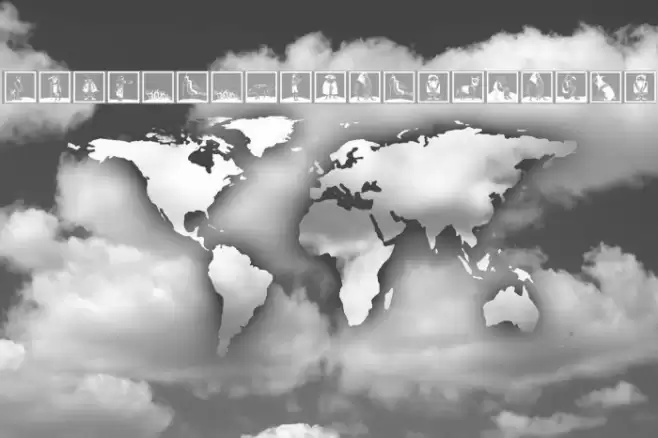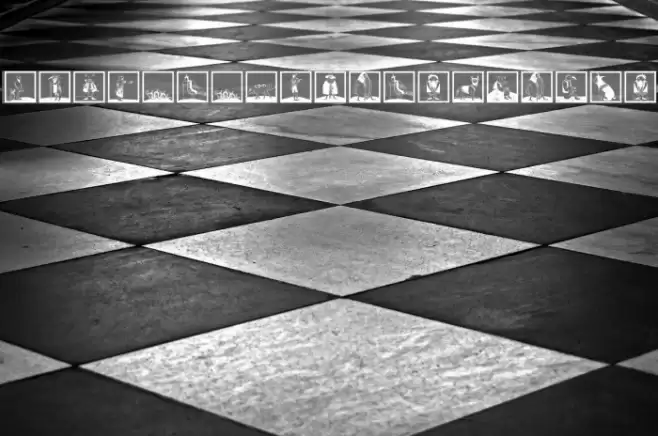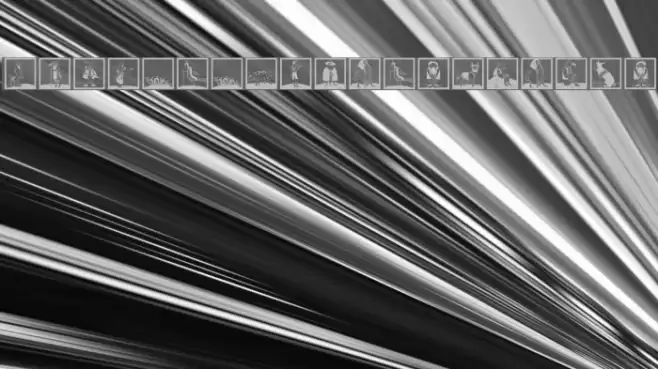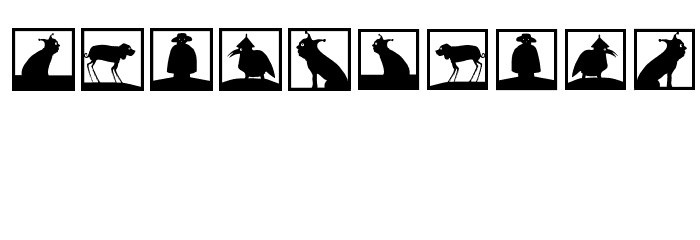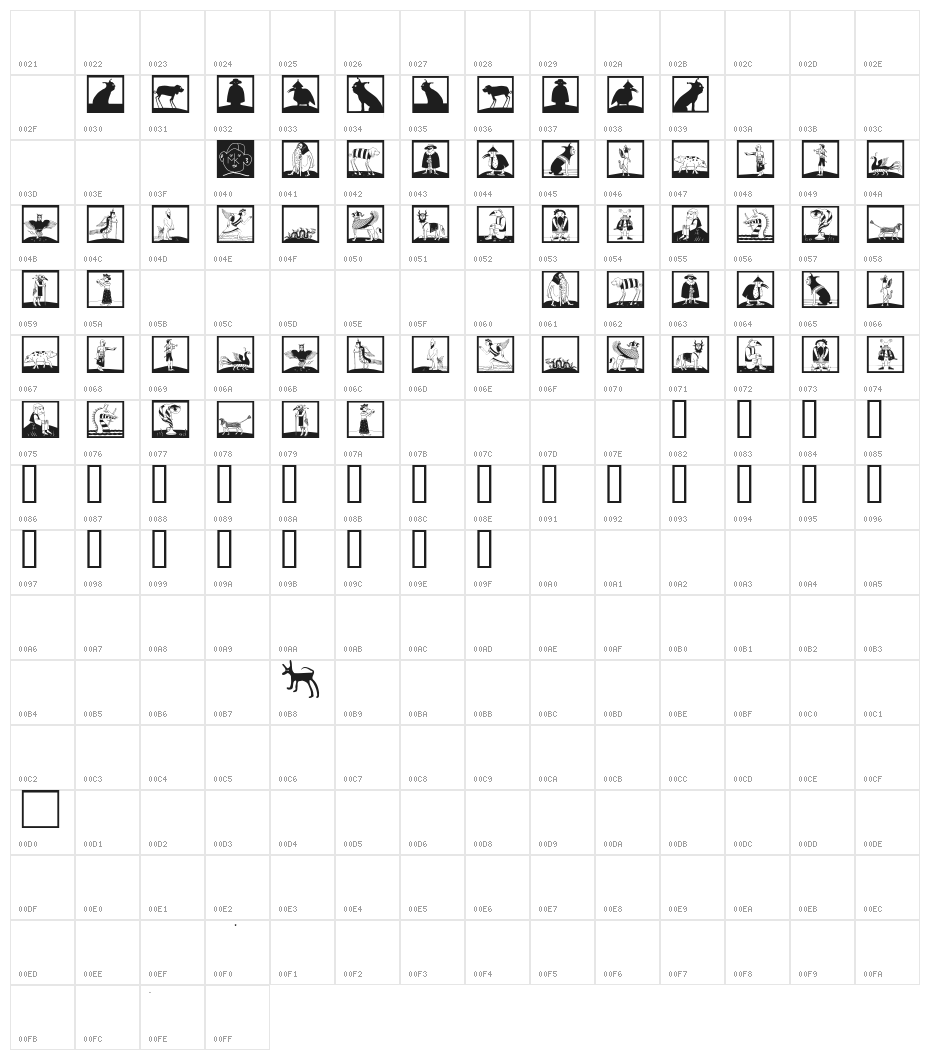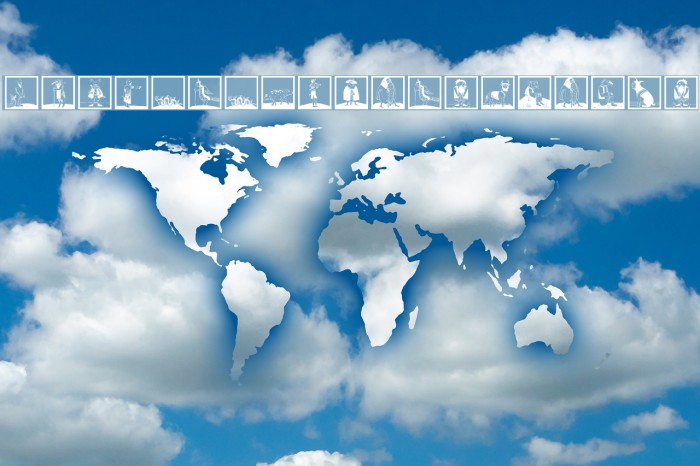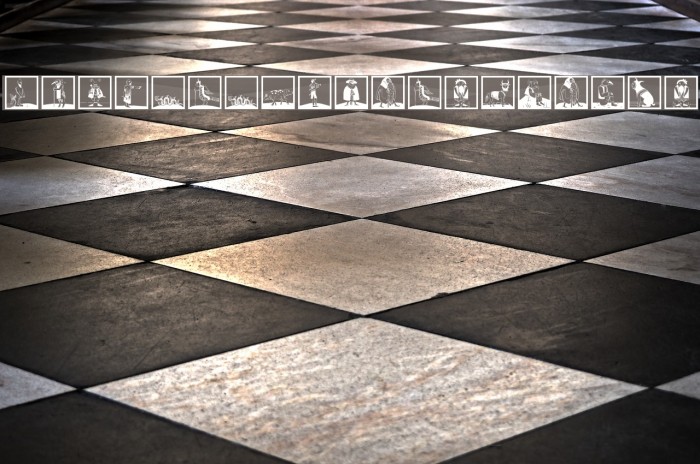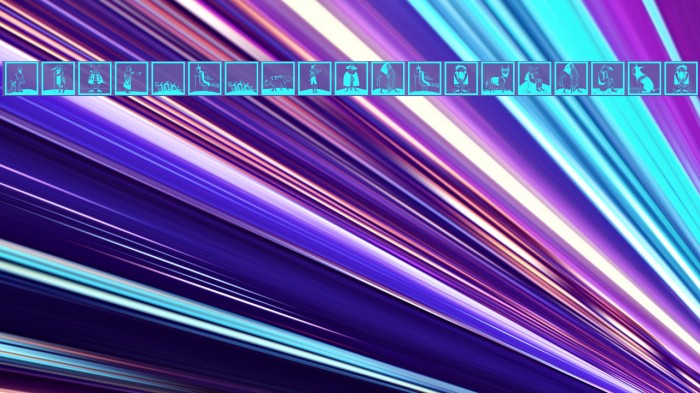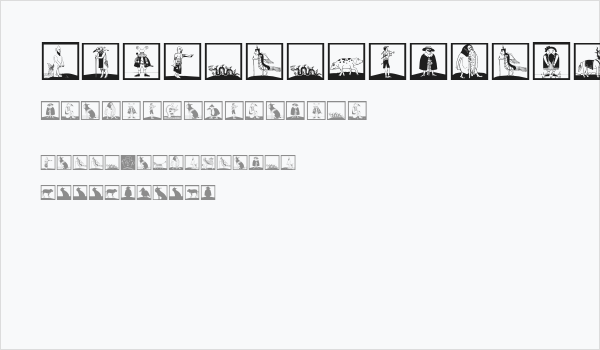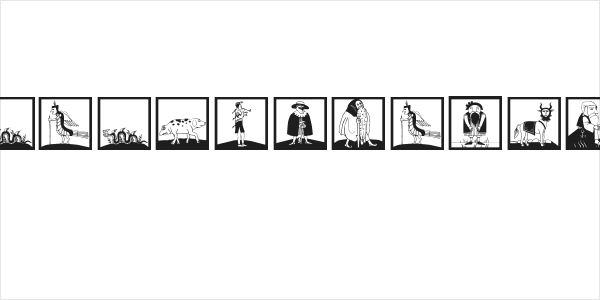
MythologicalSquares Font
MythologicalSquares Description
A decorative display font where each character is represented by a unique, mythological or fantasy-inspired illustration inside a square frame. The glyphs are highly stylized, using strong black and white contrast, and each letter or symbol is depicted as a distinct creature or figure, making the set visually engaging and thematic.
Illustrative, mythological-themed display font with each character in a square frame from Uncategorized fonts.
- Proposed Projects: Book covers, fantasy game titles, posters, themed event invitations, branding for mythological or fantasy products.
- Overall Style: Decorative, Fantasy, Mythological
- Use Case: Headlines, Logos, Posters, Themed Graphics